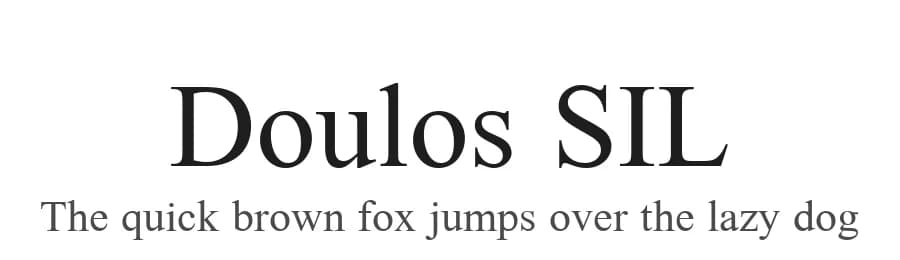
About Doulos SIL Font
Doulos SIL is a serif font designed by SIL International. It includes 4661 glyphs, a regular weight, TTF (TrueType) format, and 603 languages. Doulos SIL is free to download; check the license details on this page before commercial use. Serif fonts like Doulos SIL work best for body text, editorial layouts, book covers, and classic branding.
| Designer | Walt Agee, Victor Gaultney, Peter Martin, Debbi Hosken |
Doulos SIL supports 603 languages.
Doulos SIL Font is a versatile serif font that works for both headings and body text. Pair it with a contrasting sans-serif or slab serif font to add visual interest and a clear distinction between titles and body copy.
Doulos SIL Font
Doulos SIL Font is a serif typeface by SIL International, ideal for logos, invitations, branding, and creative projects.